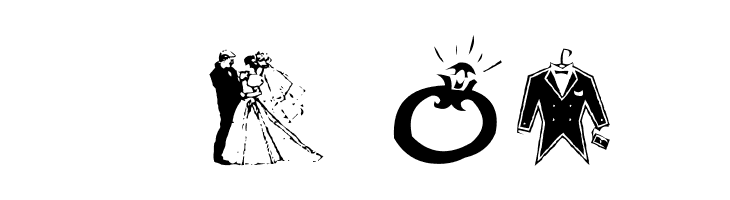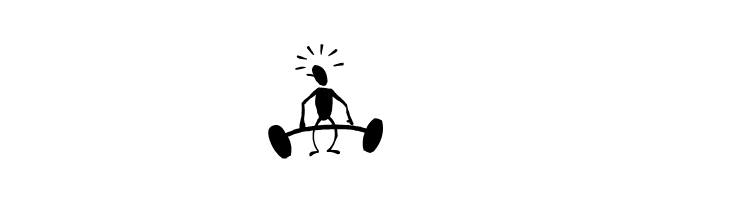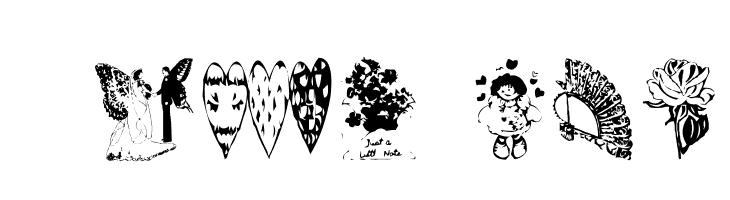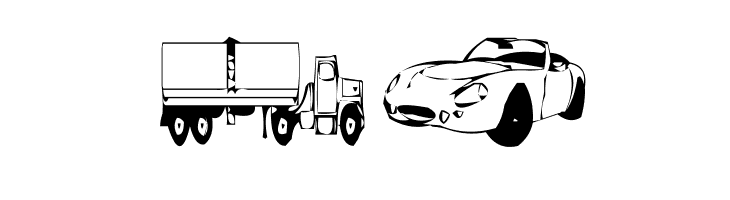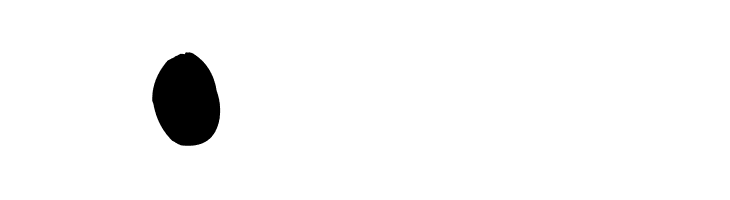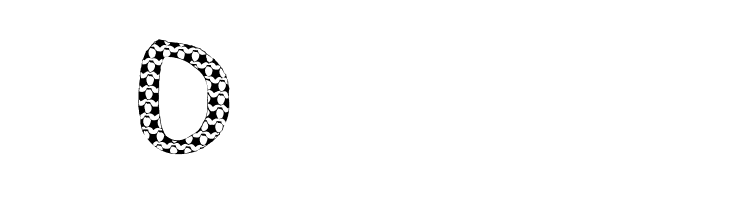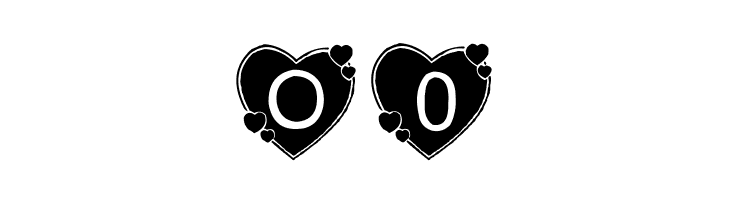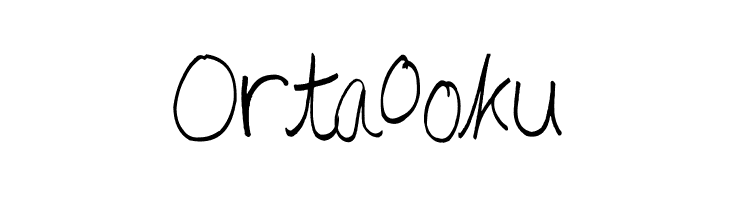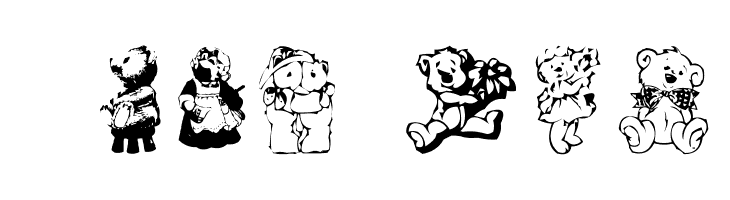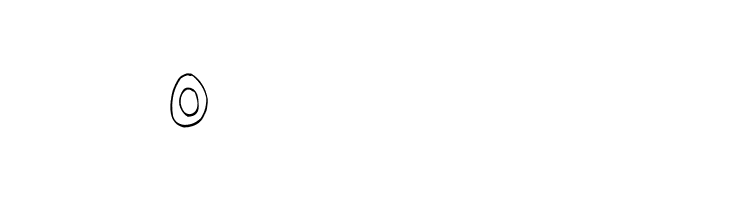
• AEZ Transportation 2005
A pictogram font featuring various transportation vehicles.
• AEZ Vanity
A playful, decorative font with pattern-filled, textured letterforms.
• AEZ wedding dings
A decorative set of wedding-themed dingbats featuring couples, rings, and celebratory icons.
• AEZ Where's Harry?
A series of whimsical stick figure illustrations conveying playful actions.
• AEZAnastacia's Dings
A decorative dingbat set featuring playful and whimsical illustrations.
• AEZAnastaciaHW
A playful, casual handwritten font with irregular, flowing letterforms.
• AEZbasic font
A playful, hand-drawn font with bold, sketchy characters.
• AEZbears
A decorative font featuring whimsical bear illustrations for each character.
• AEZbighearts
A decorative font with characters encased in heart shapes, ideal for romantic themes.
• AEZblot by Jon Zittel
A playful, hand-drawn font with irregular strokes and whimsical charm.